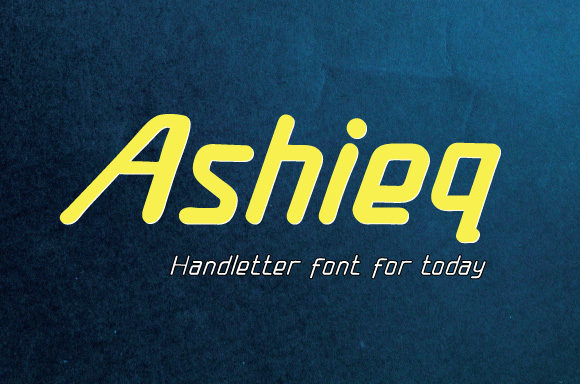
In a world where words dance across screens and pages, seeking to capture hearts and minds, there lies a font that exudes elegance and charm, captivating all who behold its beauty: Ashieq, a masterpiece crafted by Dedi Art Studio. A sans serif font that transcends the ordinary, it beckons you to embark on a journey of creative expression, transforming your designs into works of art.
With its clean lines and graceful curves, Ashieq possesses a timeless allure, reminiscent of classic love stories and enduring bonds. Its simplicity is deceptive, for within its structure lies a universe of possibilities, inviting you to explore new horizons of design. Whether you're crafting heartfelt messages for your beloved, creating captivating logos that leave a lasting impression, or designing quotes that touch the depths of the soul, Ashieq is your trusted companion.
Ashieq is not merely a font; it is an emotion, a whisper of love carried on the wings of letters. Its versatility knows no bounds, adapting seamlessly to a myriad of projects, from personal expressions to professional endeavors. It dances effortlessly on wedding invitations, adding a touch of romance to the most special day of your life. It lends its charm to branding and marketing materials, creating a lasting impression that resonates with your audience. And when used in quotes and social media posts, Ashieq transforms words into poignant expressions of the heart, reaching out to connect with kindred spirits.
Embrace Ashieq today and unlock the door to a world of creative possibilities. Let its elegance guide your designs, its simplicity inspire your imagination, and its versatility empower you to craft projects that stand the test of time. Ashieq is more than just a font; it is a key to unlocking the hidden beauty within your words, a brush that paints emotions onto the canvas of your designs. Embrace its magic, and together, you shall create a symphony of visual masterpieces that will echo through the hearts of all who encounter them.